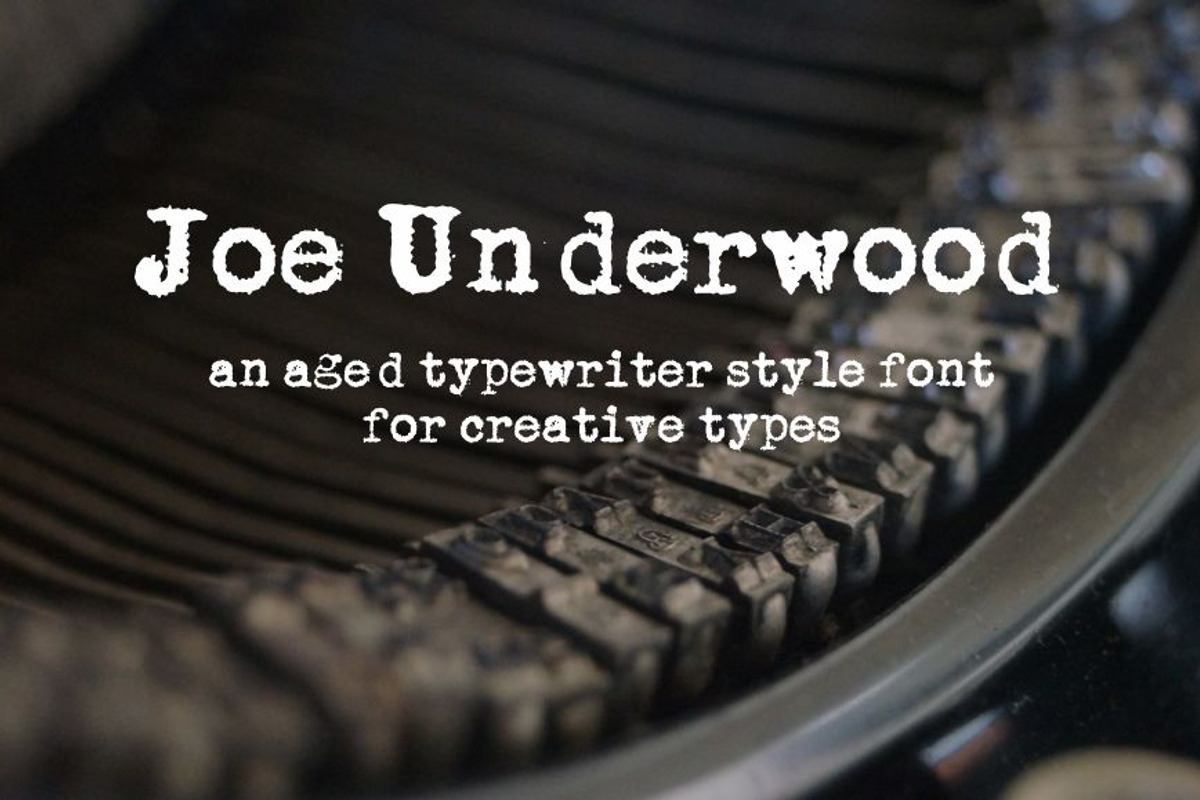
Joe Underwood Typewriter Font Free Download
Joe Underwood Typewriter Font Free Download captures the raw, authentic feel of vintage typewritten text with a modern twist. Its uneven strokes, subtle texture, and classic letterforms bring a nostalgic charm that’s perfect for retro posters, zines, writer portfolios, creative journals, and editorial projects.
This typewriter-style font adds character and mood to any layout, evoking a sense of storytelling and timeless appeal. Whether you're working on a mystery novel cover or designing an old-school inspired brand, Joe Underwood delivers a distinctive personality.